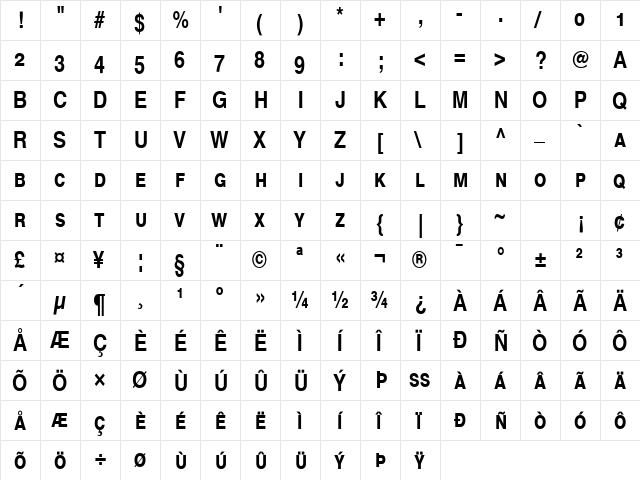
Helvetica Narrow SC Bold
Design Context for Helvetica Narrow SC Typeface
Helvetica Narrow SC takes a measured approach to typography — its balanced proportions and neutral character make it a reliable workhorse for both digital and print work. Its bold stroke weight gives it real presence on the page. Its narrow stance lets it pack a punch even in space-constrained designs.